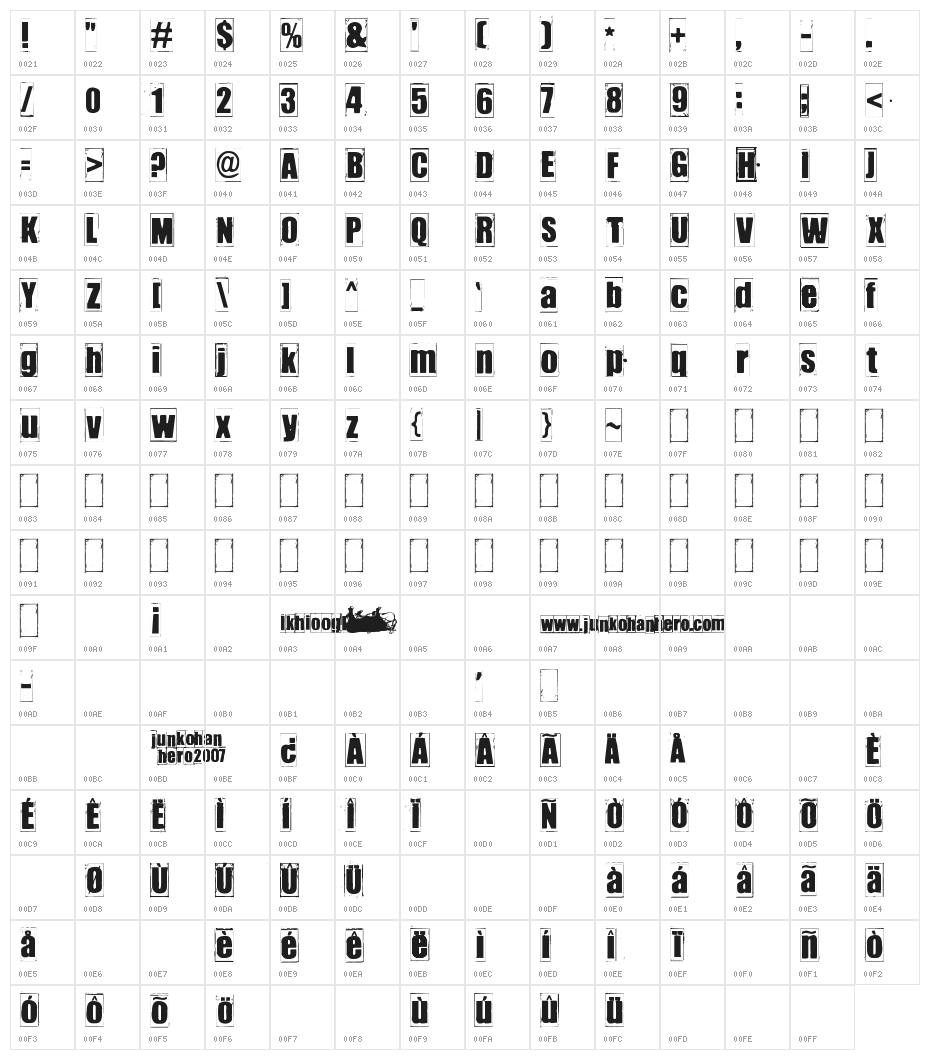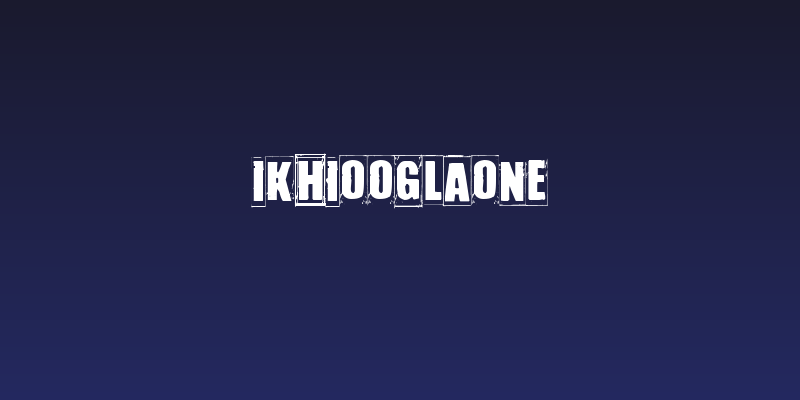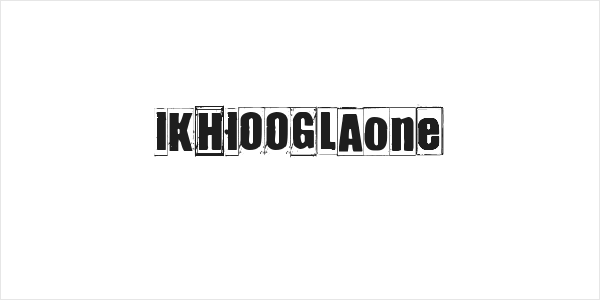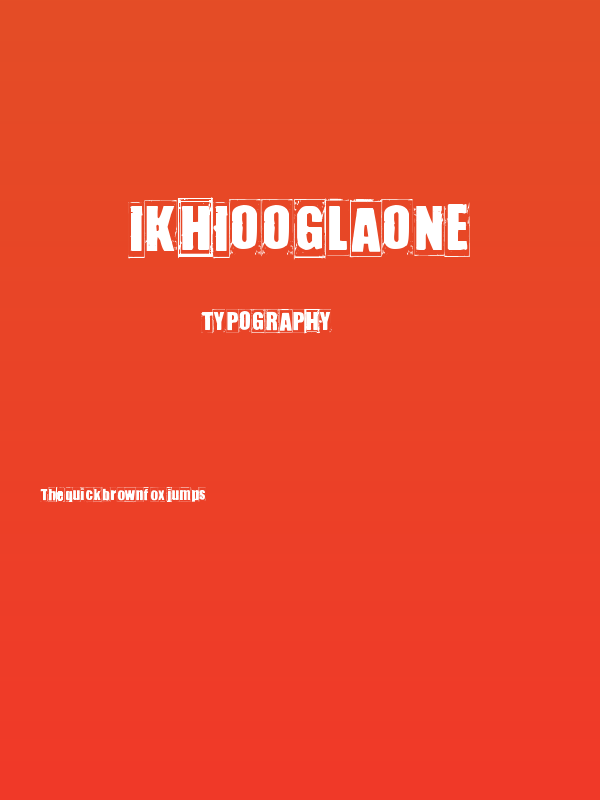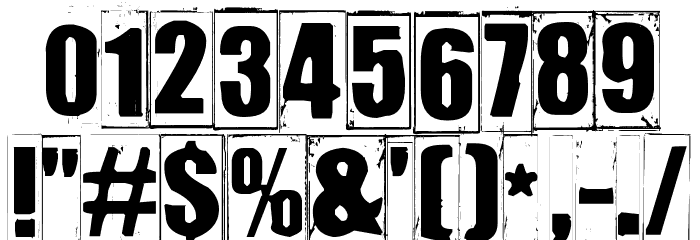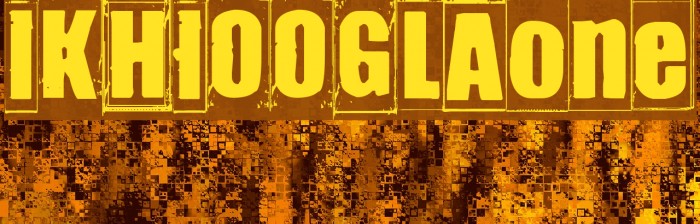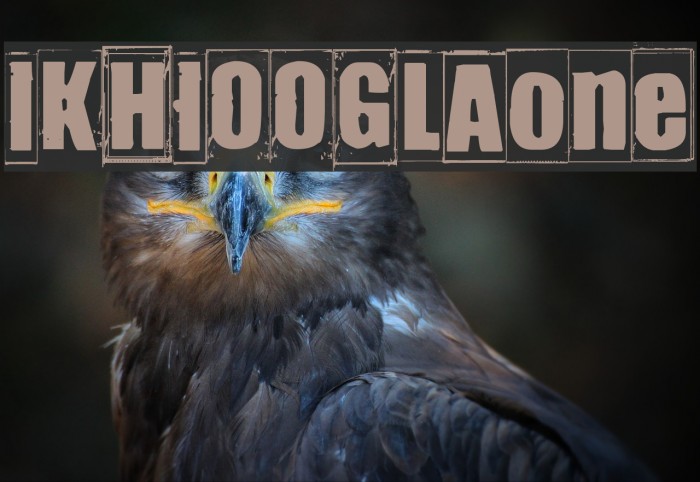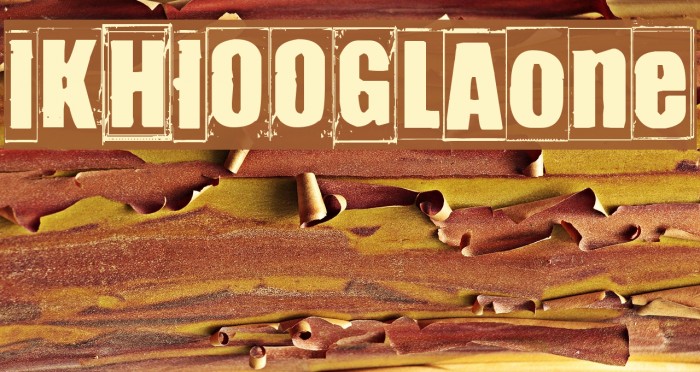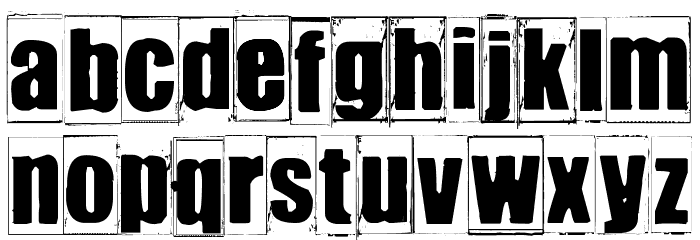
IKHIOOGLAone Font
This font features a bold, distressed style with a strong, impactful presence. Each character is enclosed in a box, adding to its rugged, industrial feel. The uppercase letters are bold and commanding, while the lowercase letters maintain the same distressed aesthetic. The numbers and special characters follow suit, providing a cohesive look across all elements. The font's rough edges and textured appearance give it a vintage, worn-out look, making it ideal for projects that require a gritty, authentic feel.
| Overall Style | Vintage, Industrial |
| Proposed Projects | Ideal for posters, album covers, branding for rugged products, or any design needing a vintage, industrial touch. |